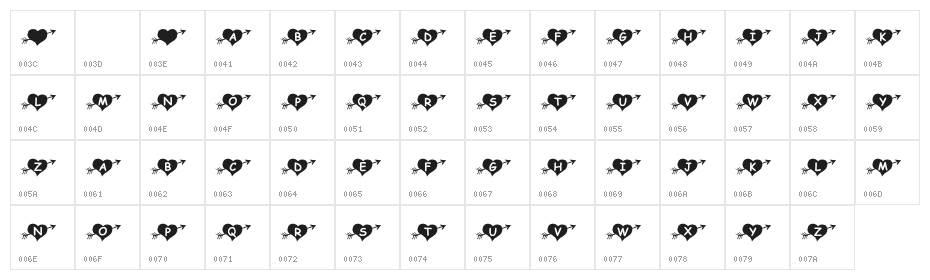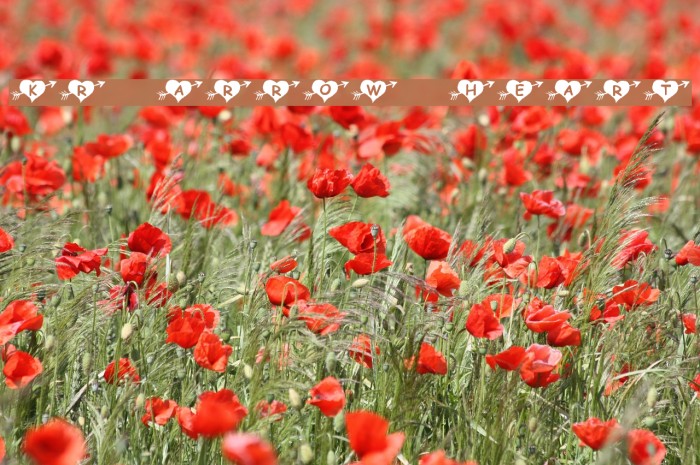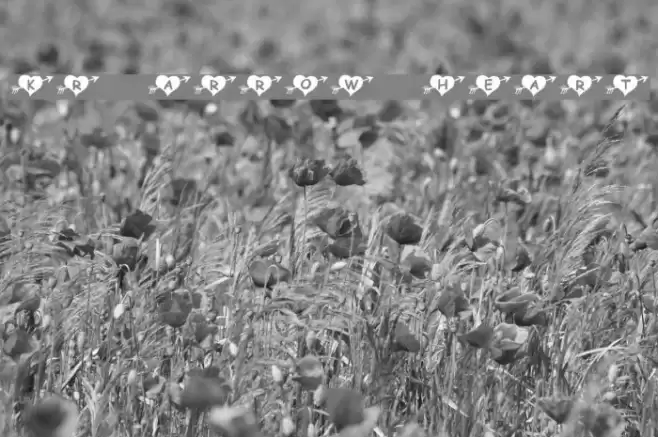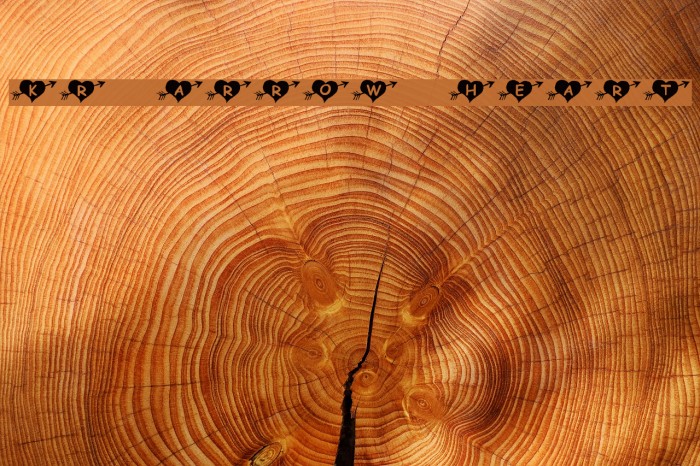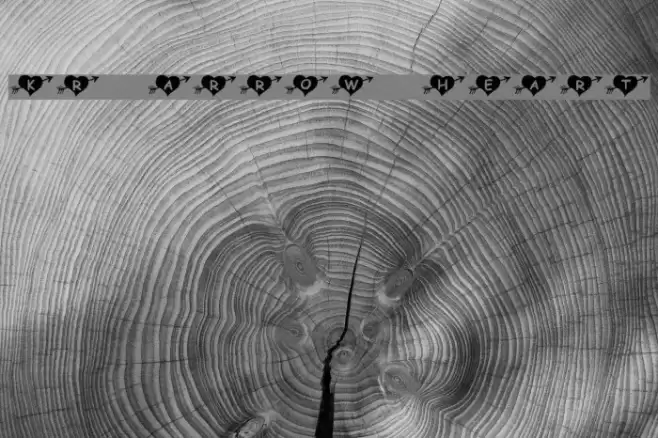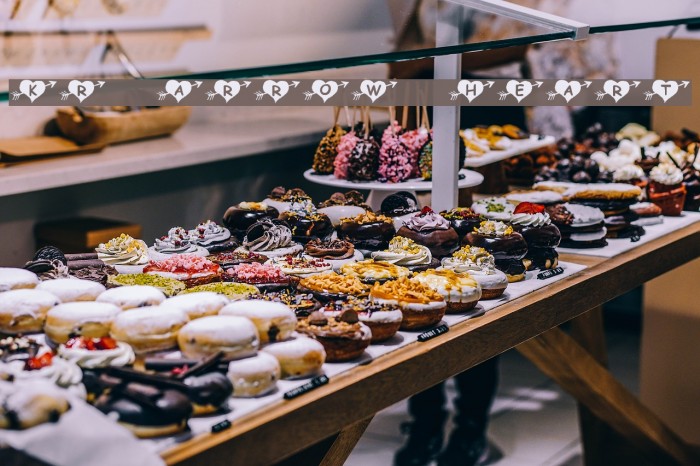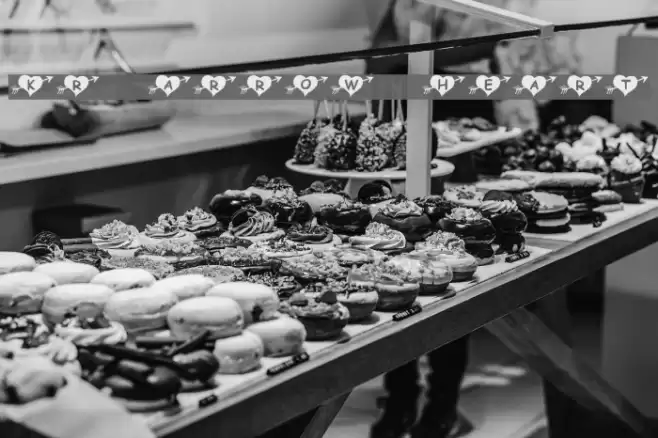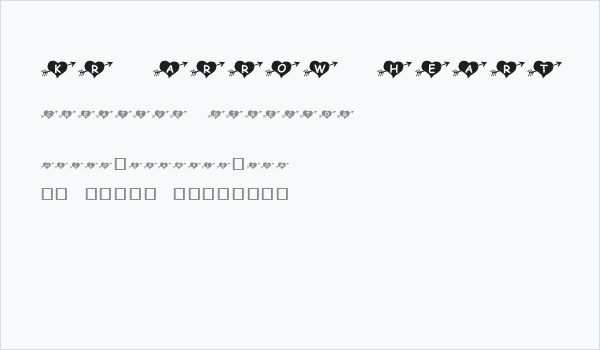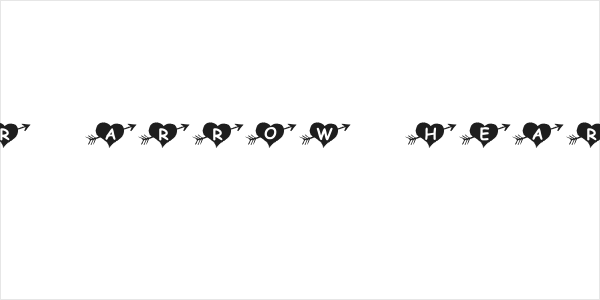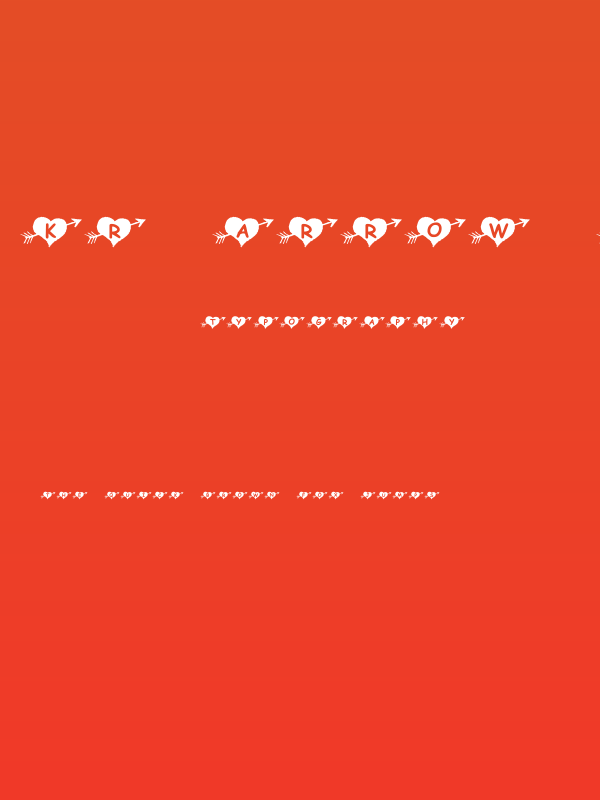
KR Arrow Heart Font
KR Arrow Heart Description
This decorative font features each character enclosed within a heart shape, pierced by an arrow, creating a playful and romantic theme. The letters are bold and easily readable, with a whimsical touch that makes them stand out. The heart and arrow motif adds a unique flair, making it suitable for creative and themed projects. The font maintains a consistent style across uppercase and lowercase letters, providing a cohesive look. The design is particularly suited for projects that aim to convey love, affection, or a playful tone.
| Overall Style | Playful, Romantic |
| Use Case | Headlines, Logos, Themed Invitations |
| Proposed Projects | Ideal for Valentine's Day cards, wedding invitations, romantic event posters, and playful branding. |